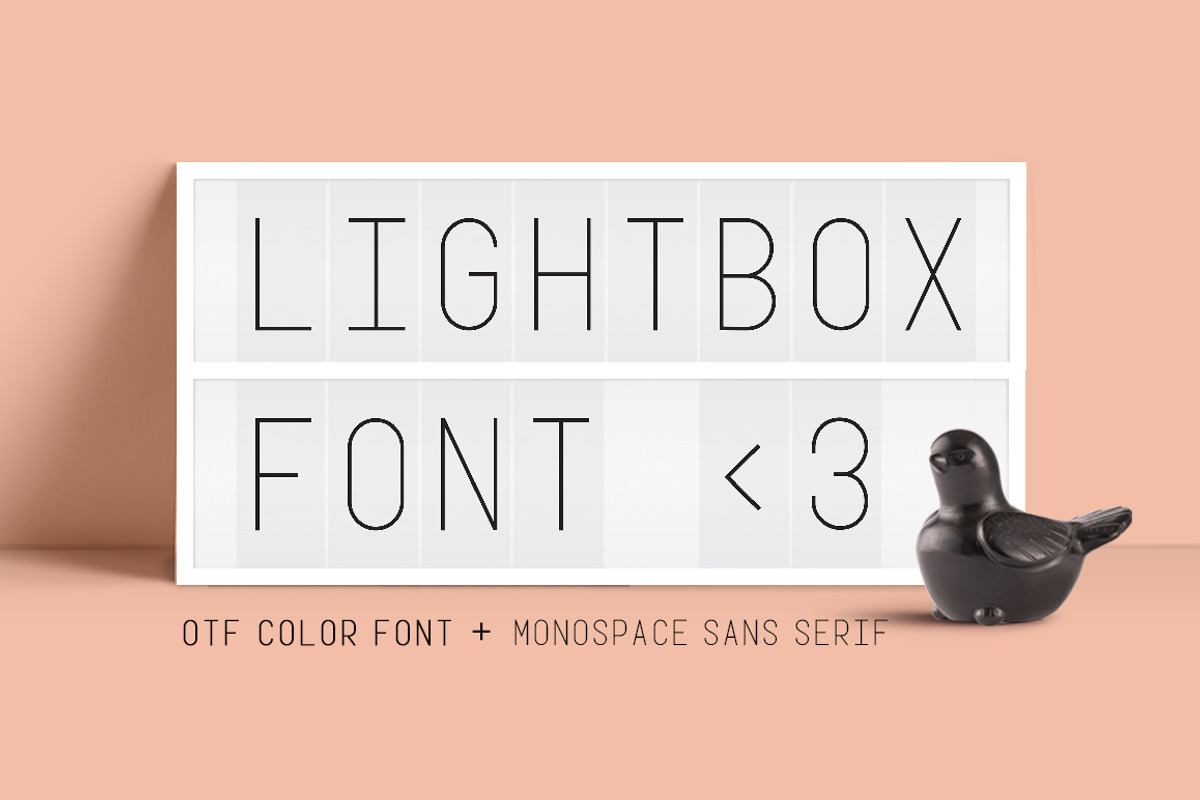
Lightbox Color Font Free Download
Lightbox Color Font Free Download is a modern, vibrant typeface that brings color and personality to your designs. This font uses color layers to create a unique, eye-catching effect, making it perfect for headlines, posters, advertisements, and digital art. Its bold and stylish design makes it stand out in any project that requires a creative and energetic visual presence.
Using the Lightbox Color Font Free Download adds a dynamic and colorful flair to your typography, perfect for projects that need to attract attention and convey energy. Whether you're working on social media graphics, event promotions, or creative branding, this font helps your message pop with style and impact.